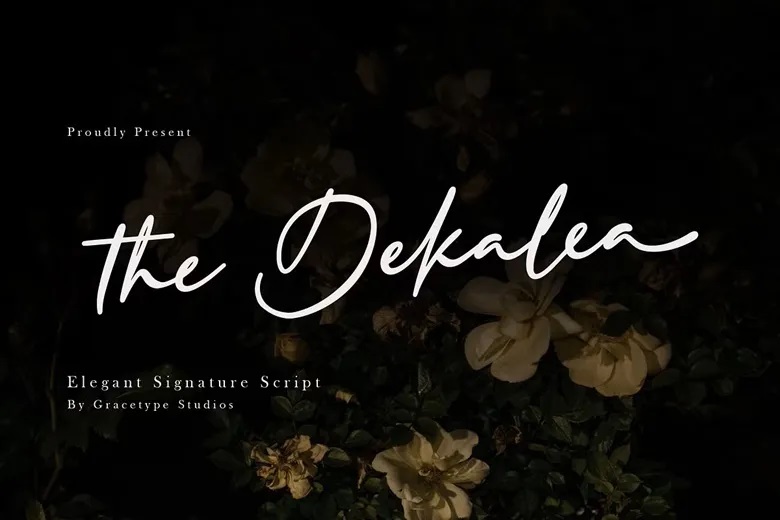
The Dekalea Font
The Dekalea Font is an elegant signature script typeface, from Gracetypestudio, suitable for any projects such as: logos, branding projects, homeware designs, product packaging, mugs, quotes, posters, shopping bags, t-shirts, book covers, name card, invitation cards, greeting cards, label, photography, watermark, special events, and all your other lovely projects that need a script taste.
The Dekalea Signature Script Font